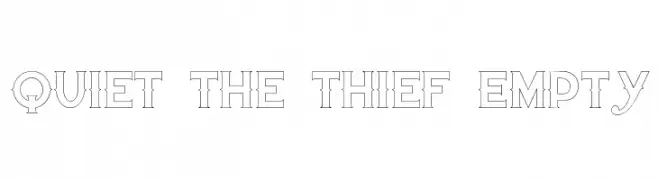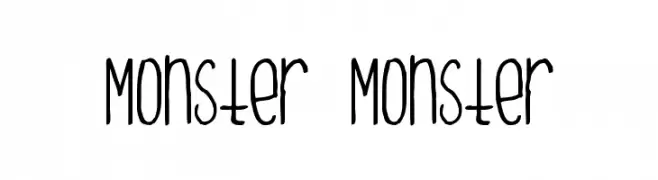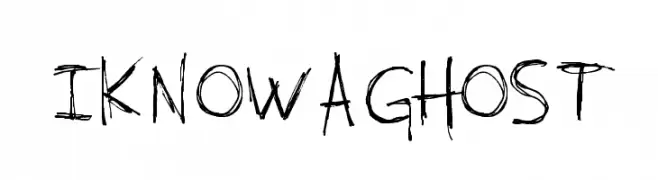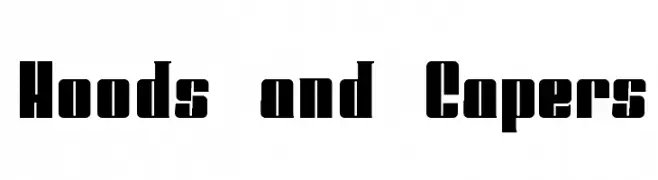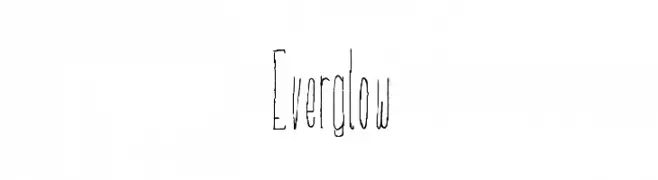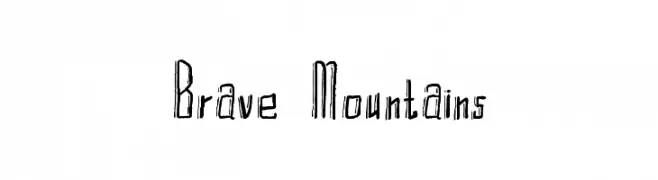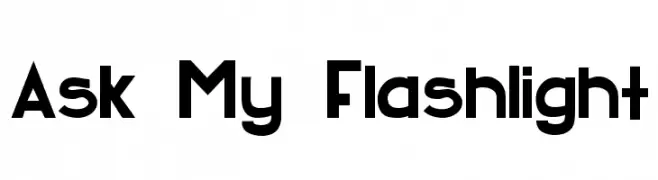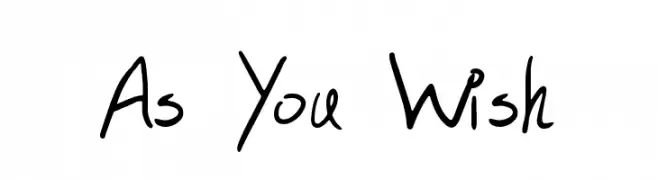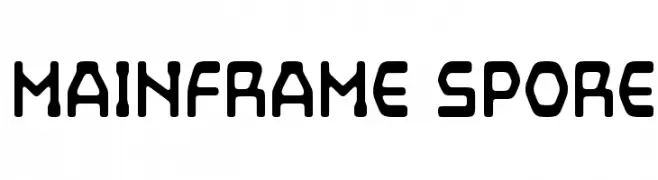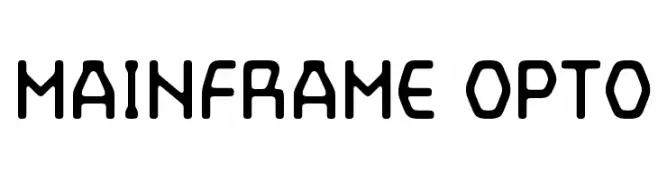
( Dismantle Destroy - Matthew Tyndall - creativemarket.com/Dismantle )
A bold, decorative font with unique serifs and a vintage-modern style.
( Dismantle Destroy - Matthew Tyndall - creativemarket.com/Dismantle )
A bold, outlined decorative font with geometric and modern elements.
( Dismantle Destroy - Matthew Tyndall - creativemarket.com/Dismantle )
A modern, decorative font with geometric and bold elements.
( Dismantle Destroy - Matthew Tyndall - creativemarket.com/Dismantle )
A bold, outlined font with a wide, decorative style.
( Dismantle Destroy - Matthew Tyndall - creativemarket.com/Dismantle )
A playful, handwritten font with tall, narrow, and quirky letterforms.
( Dismantle Destroy - Matthew Tyndall - creativemarket.com/Dismantle )
A raw, hand-drawn font with an edgy, artistic flair and uneven strokes.
( Dismantle Destroy - Matthew Tyndall - creativemarket.com/Dismantle )
A bold, geometric font with a modern and industrial aesthetic.
( Dismantle Destroy - Matthew Tyndall - creativemarket.com/Dismantle )
A bold, slab serif font with strong geometric shapes and thick strokes.
( Dismantle Destroy - Matthew Tyndall - creativemarket.com/Dismantle )
A tall, narrow, hand-drawn font with an organic and elegant style.
( Dismantle Destroy - Matthew Tyndall - creativemarket.com/Dismantle )
A distressed, grunge serif font with a textured, hand-drawn appearance.
( Dismantle Destroy - Matthew Tyndall - creativemarket.com/Dismantle )
A modern, artistic font with elongated, narrow characters and a hand-drawn feel.
( Dismantle Destroy - Matthew Tyndall - creativemarket.com/Dismantle )
A rugged, hand-drawn font with a distressed, organic appearance.
( Dismantle Destroy - Matthew Tyndall - creativemarket.com/Dismantle )
A bold, geometric font with a modern and clean aesthetic.
( Dismantle Destroy - Matthew Tyndall - creativemarket.com/Dismantle )
A playful, casual handwritten font with dynamic strokes and a lively personality.
( Dismantle Destroy - Matthew Tyndall - creativemarket.com/Dismantle )
A modern, geometric font with bold, clean lines and a uniform appearance.
( Dismantle Destroy - Matthew Tyndall - creativemarket.com/Dismantle )
A modern, geometric font with sleek lines and circular elements.
( Dismantle Destroy - Matthew Tyndall - creativemarket.com/Dismantle )
A sleek, modern italic font with clean lines and geometric structure.
( Dismantle Destroy - Matthew Tyndall - creativemarket.com/Dismantle )
A bold, italic, modern font with a sleek and dynamic design.
( Disaster Fonts - Andrew - disasterfonts.co.uk )
A futuristic, geometric font with a double-line structure and consistent stroke width.
( Disaster Fonts - Andrew - disasterfonts.co.uk )
A futuristic, bold font with rounded edges and a geometric design.
( Disaster Fonts - Andrew - disasterfonts.co.uk )
A futuristic, geometric font with rounded edges and uniform strokes.
( Dirtyline Studio - Hendra Maulia - creativemarket.com/h_m )
A bold, cursive font with dynamic, flowing strokes and elegant flourishes.
( Dirtyline Studio - Hendra Maulia - creativemarket.com/h_m )
A bold, hand-drawn font with a rough, textured appearance.
( Dirtyline Studio - Hendra Maulia - creativemarket.com/h_m )
A bold, hand-drawn font with a rough, vintage texture.
( Dirtyline Studio - Hendra Maulia - creativemarket.com/h_m )
A bold, flowing script font with elegant curves and a modern touch.
( Dirtyline Studio - Hendra Maulia - creativemarket.com/h_m )
A sophisticated script font with elegant, flowing cursive strokes.
( Dira - bit.ly/dirastudio )
An elegant script font with high contrast and flowing cursive style.
( Diogo Ribeiro )
A bold, pixelated font with a retro, 8-bit digital aesthetic.
( Din Studio - Donis Miftahudin - creativemarket.com/donism )
A playful, whimsical font with tall, narrow letterforms and consistent stroke width.
( Din Studio - Donis Miftahudin - creativemarket.com/donism )
A bold, rounded sans-serif font with a modern and cohesive design.
( Din Studio - Donis Miftahudin - creativemarket.com/donism )
A playful, rough-textured font with a hand-drawn, brush-like appearance.
( Din Studio - Donis Miftahudin - creativemarket.com/donism )
A playful and whimsical script font with flowing curves and elegant loops.
( Din Studio - Donis Miftahudin - creativemarket.com/donism )
A playful, cartoonish font with bold, rounded characters and whimsical details.
A bold, playful font with exaggerated, rounded forms and tight spacing.
( Din Studio - Donis Miftahudin - creativemarket.com/donism )
A playful, bold, hand-drawn font with a whimsical and friendly appearance.